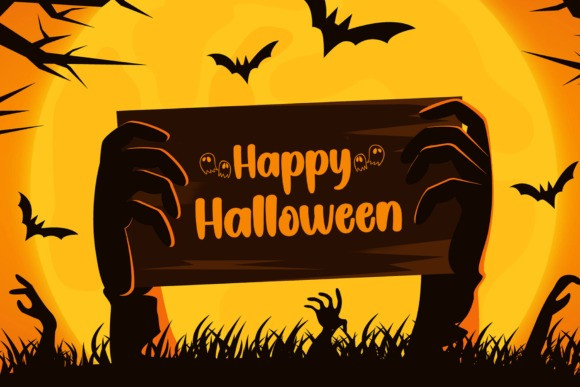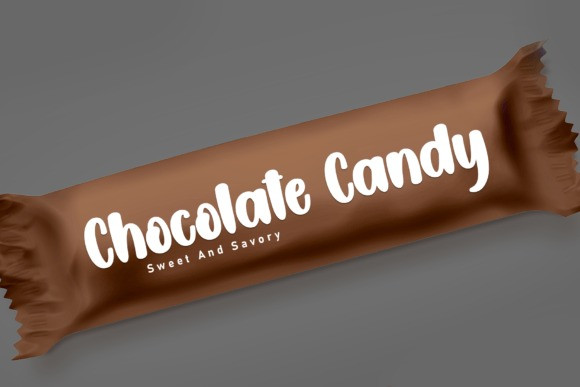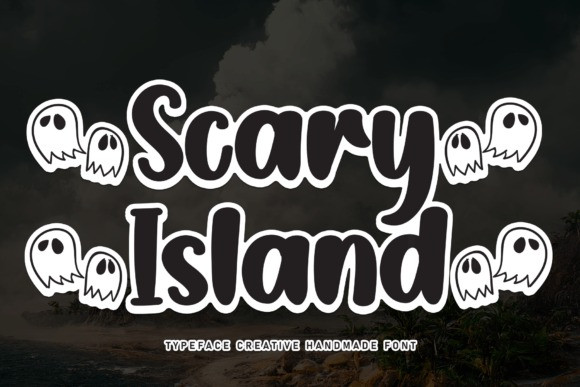
Scary Island Font
Scary Island is a clean, relaxed, and friendly handwritten font. Suitable to a wide variety of designs due to its neat and simple style, this font has the potential to become your favorite go-to font, no matter the occasion!